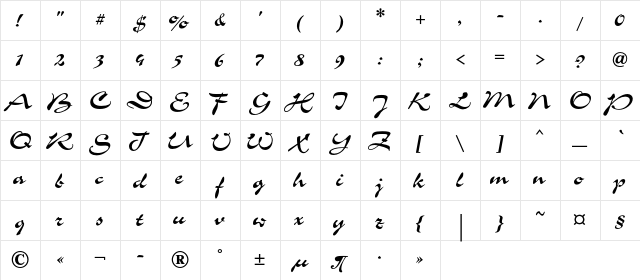
CorridaC Regular
Design Context for CorridaC Typeface
CorridaC is a composed and adaptable typeface that performs quietly and consistently across a wide range of design contexts.